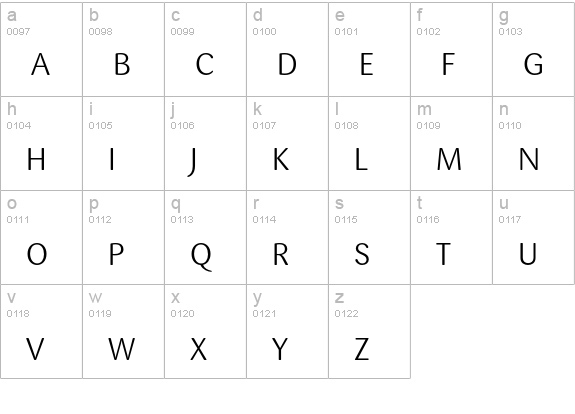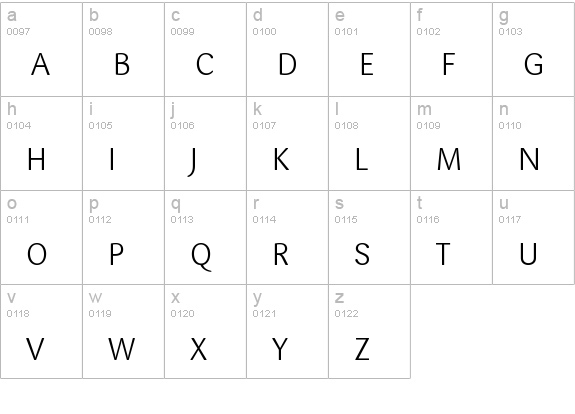
Sari-LightCaps Font Details
Introducing Sari-LightCaps, a captivating and elegant font that effortlessly combines sophistication with a touch of playfulness. This unique typeface is the perfect choice for those seeking a font that truly stands out, whether it's for graphic design projects, branding materials, or eye-catching headlines. Sari-LightCaps showcases a harmonious balance between crisp lines and gentle curves, creating a visually appealing aesthetic that captures attention and leaves a lasting impression. Its slender and refined letterforms exude a sense of grace and modernity, making it suitable for a wide range of design applications. But what truly sets Sari-LightCaps apart is its versatility and adaptability. With its clean and legible design, this font seamlessly adapts to various design styles and layouts, ensuring that your message remains clear and impactful. Whether you're looking to create a bold and daring poster or a delicate and intricate logo, Sari-LightCaps has got you covered. And the best part? Sari-LightCaps is absolutely free! Yes, you read that right. This stunning font is freely available to download at FontsMarket.com, allowing you to unleash your creativity without any limitations. Embrace the freedom to explore and experiment with this remarkable font and witness your designs come to life in ways you never thought possible. So why wait? Elevate your design projects to new heights with Sari-LightCaps. Download it today from FontsMarket.com and let your creativity soar like never before.